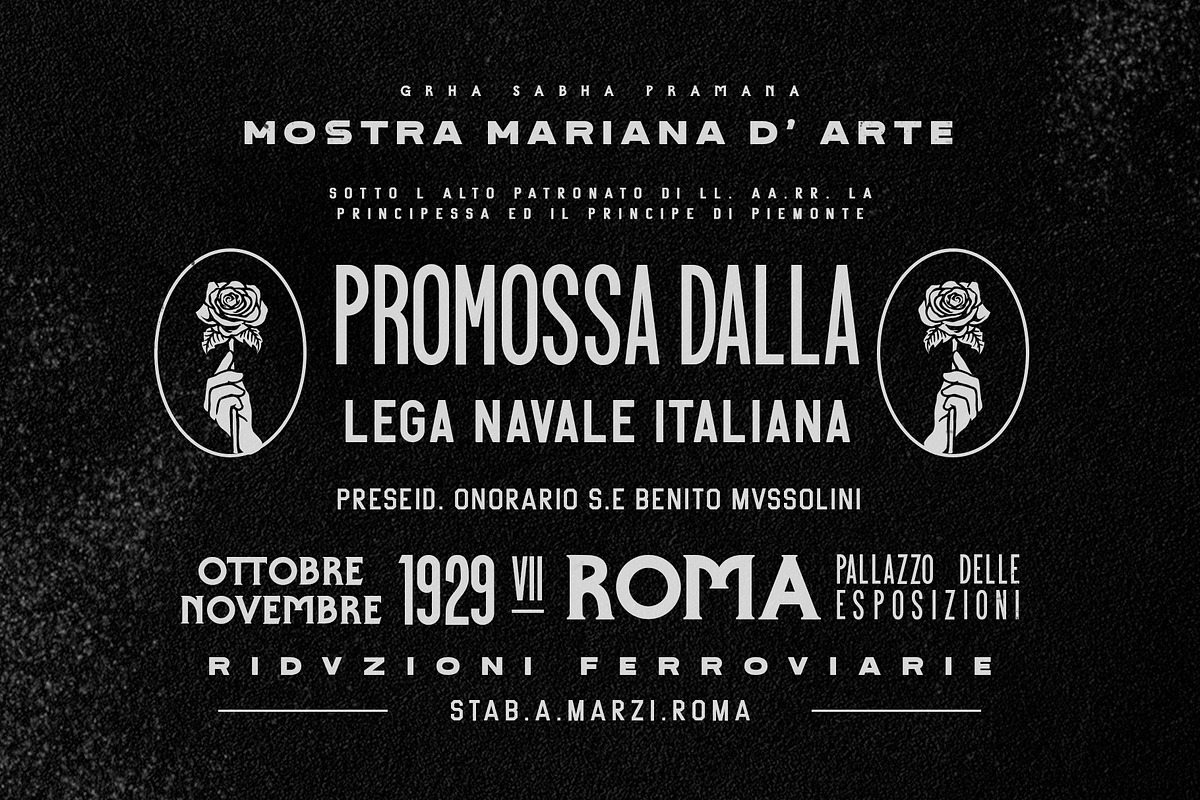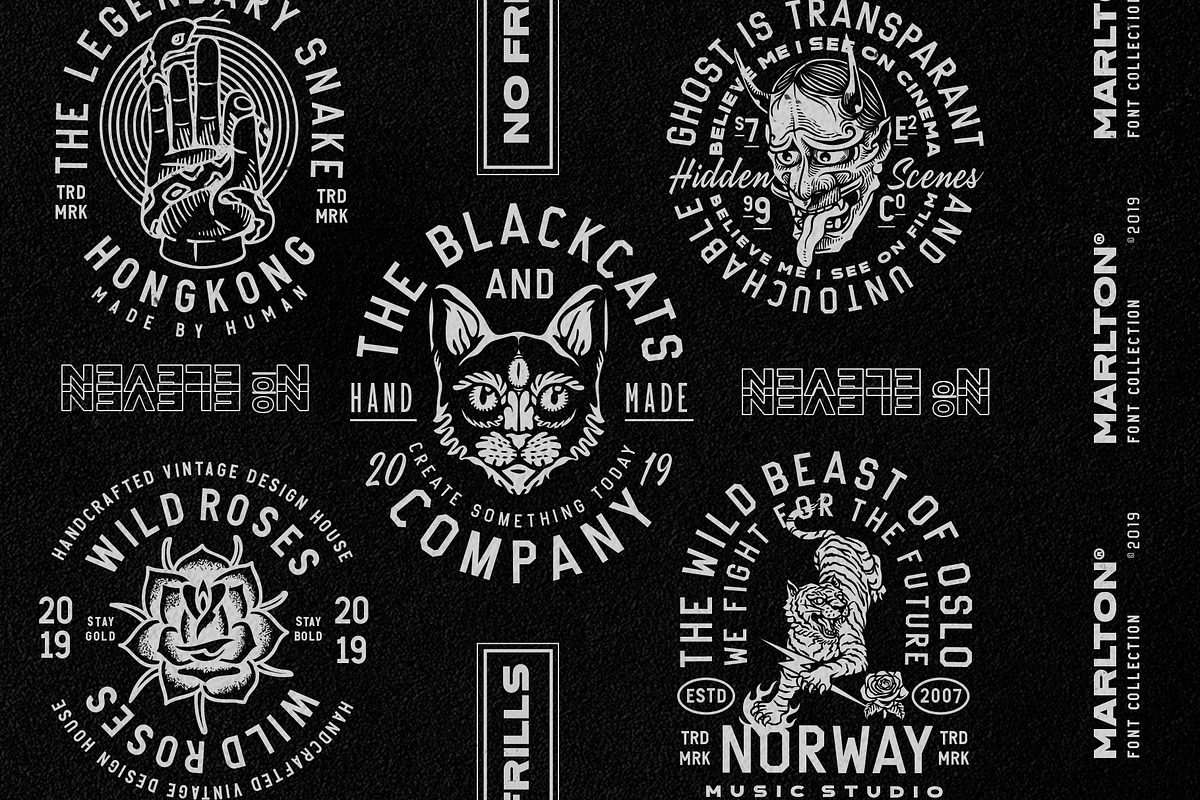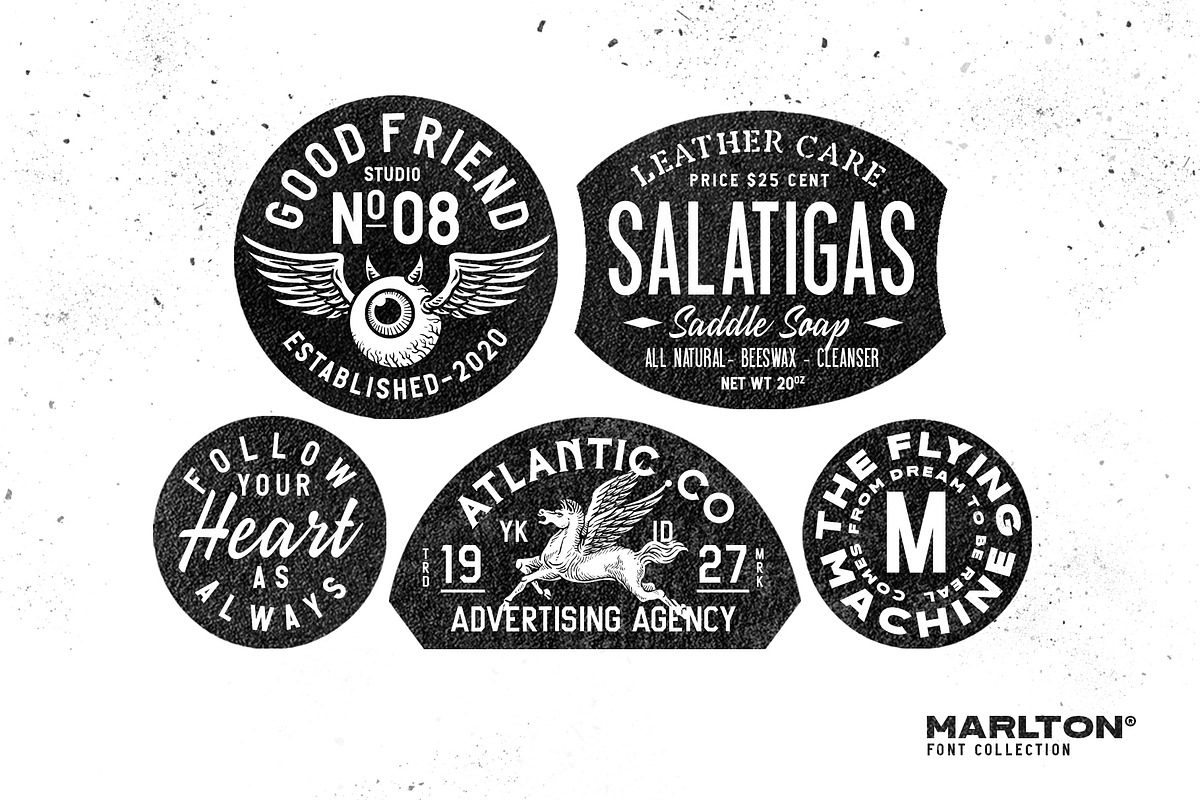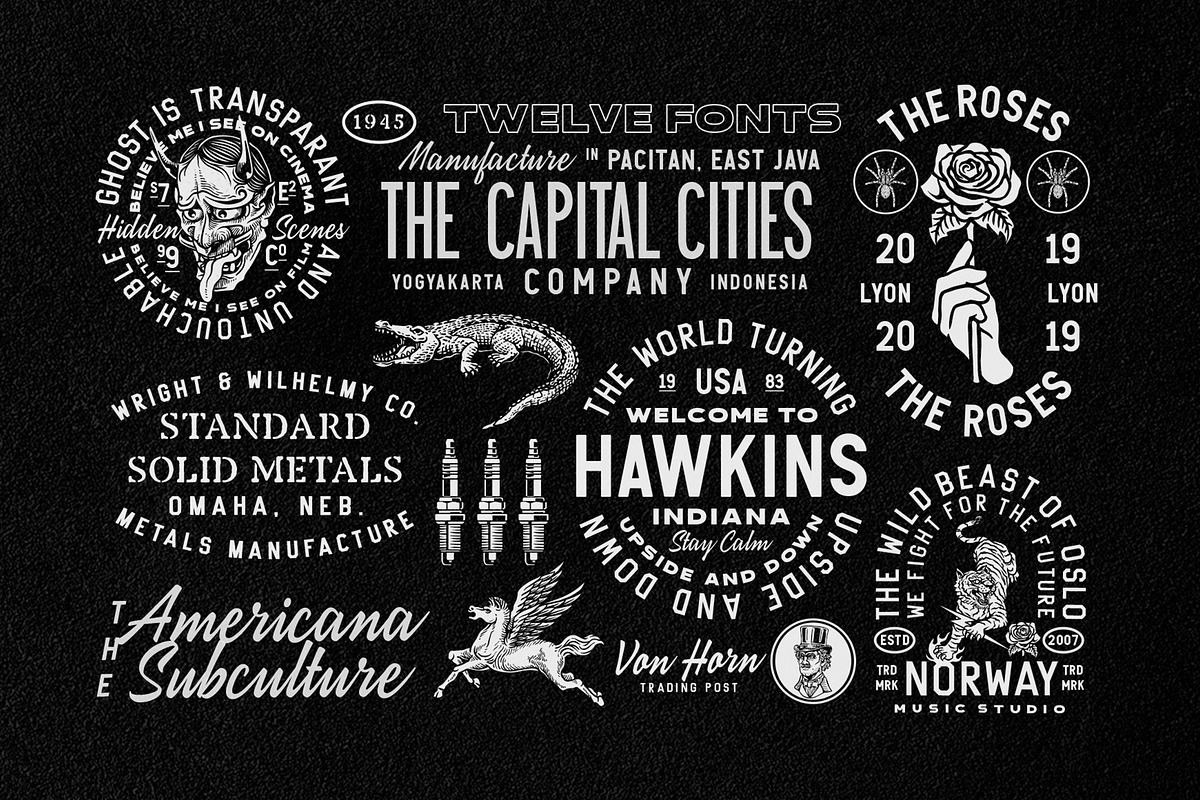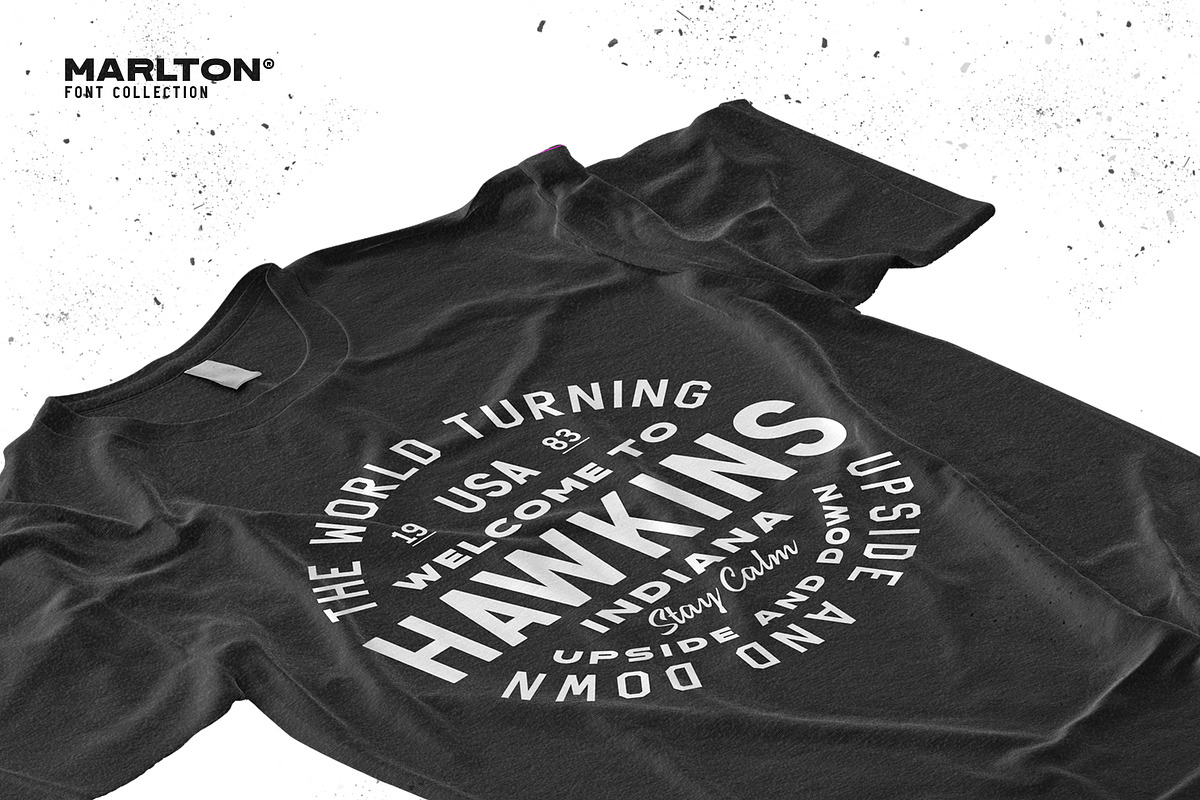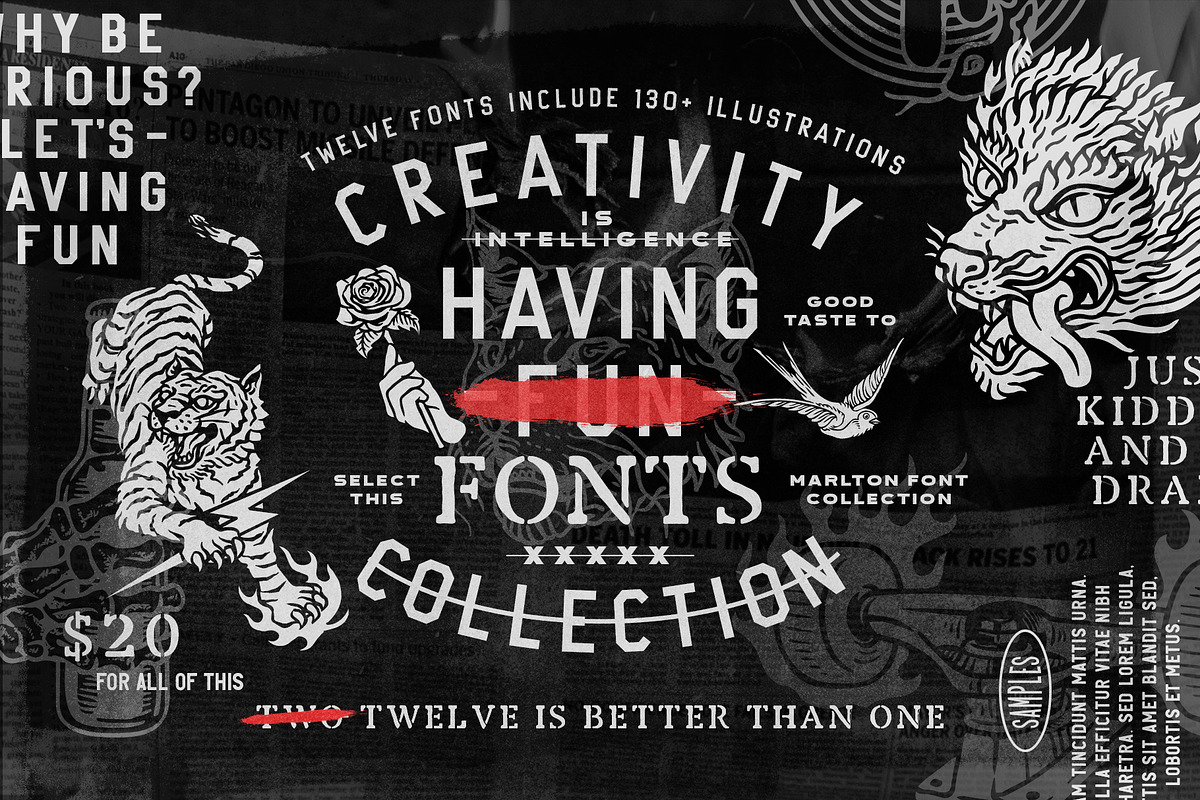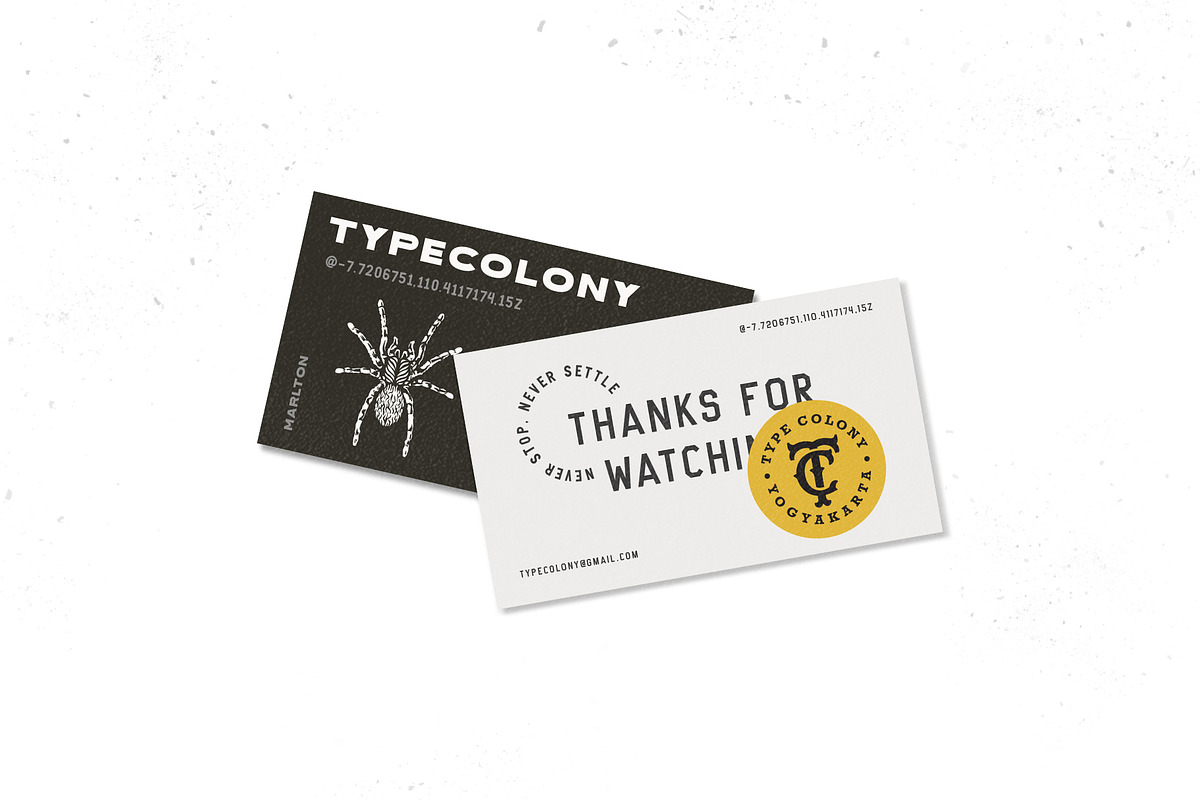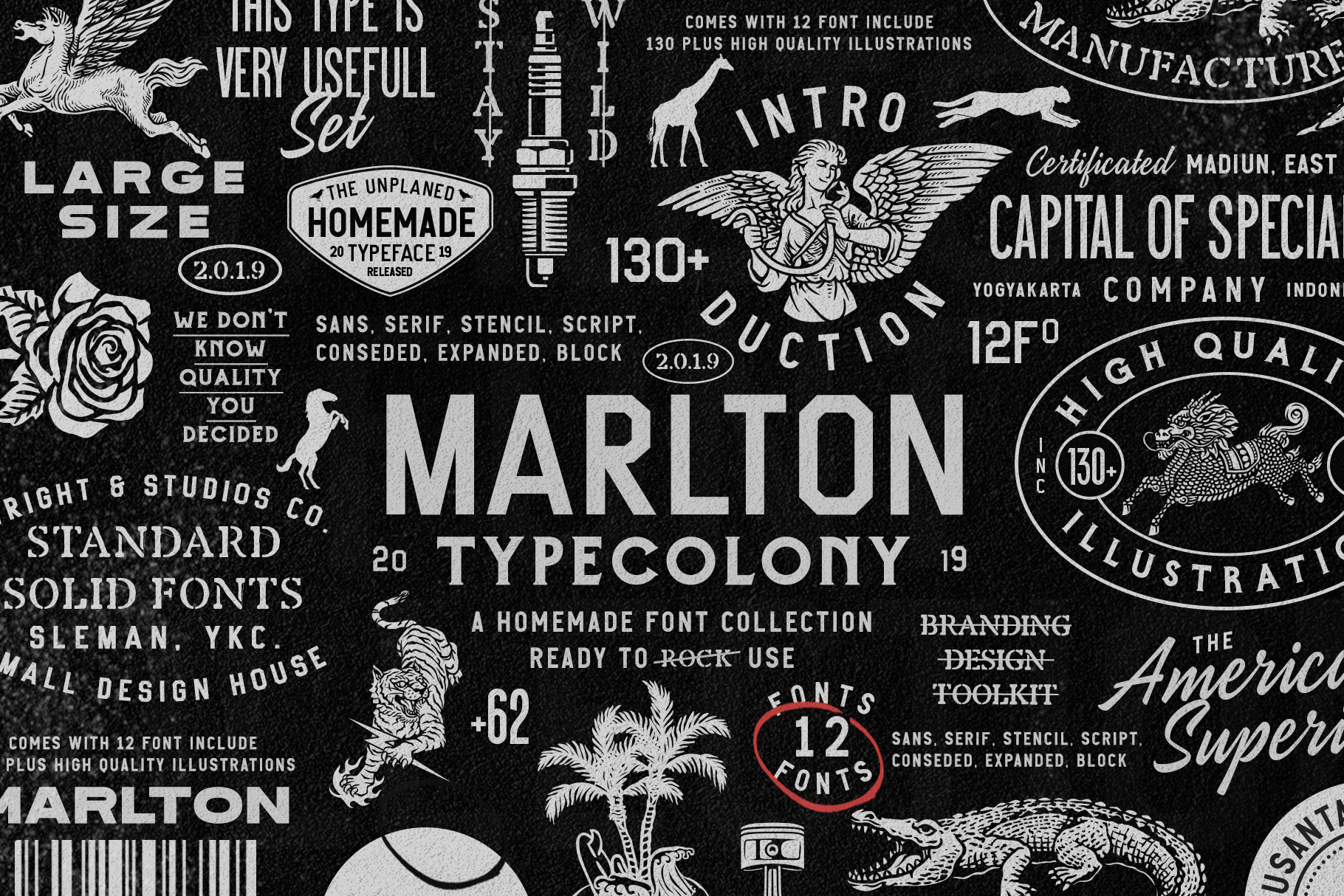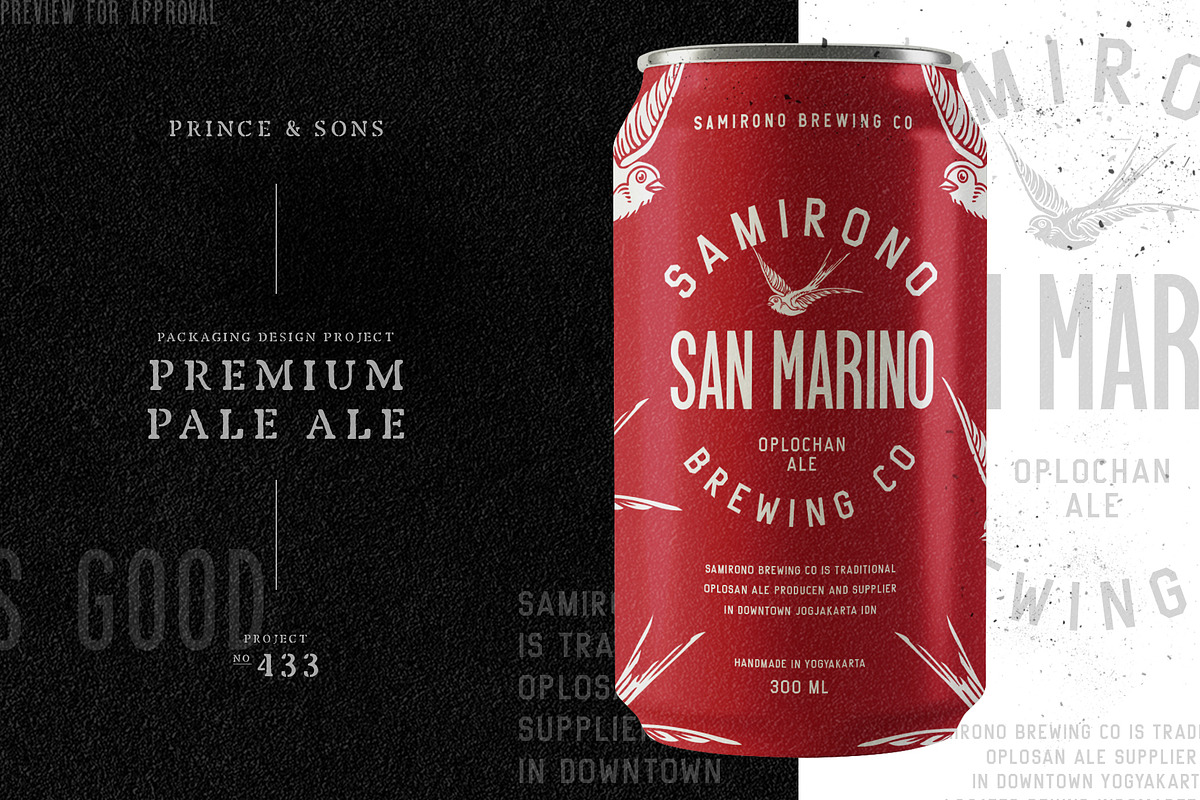
Marlton Font Collection
Marlton Font Collection is 12 fonts include various styles sans, serif, script, expanded, condensed, block, stencil) with 130+ illustration extras. The fonts are inspired by vintage packaging and nowadays retro labels design based on Instagram trend.
Marlton Font Collection is made to be a branding design toolkit to help you make something like badges, label, logo, headline, packaging, poster, letterhead, and etc. This collection also includes a ton of illustration on OTF format so you can easily use without drag and drop from another software just type and get your suitable illustration needed.
- Discretionary ligatures
- Alternates Styles
- Rich Fonts Collection
- Illustrations Set